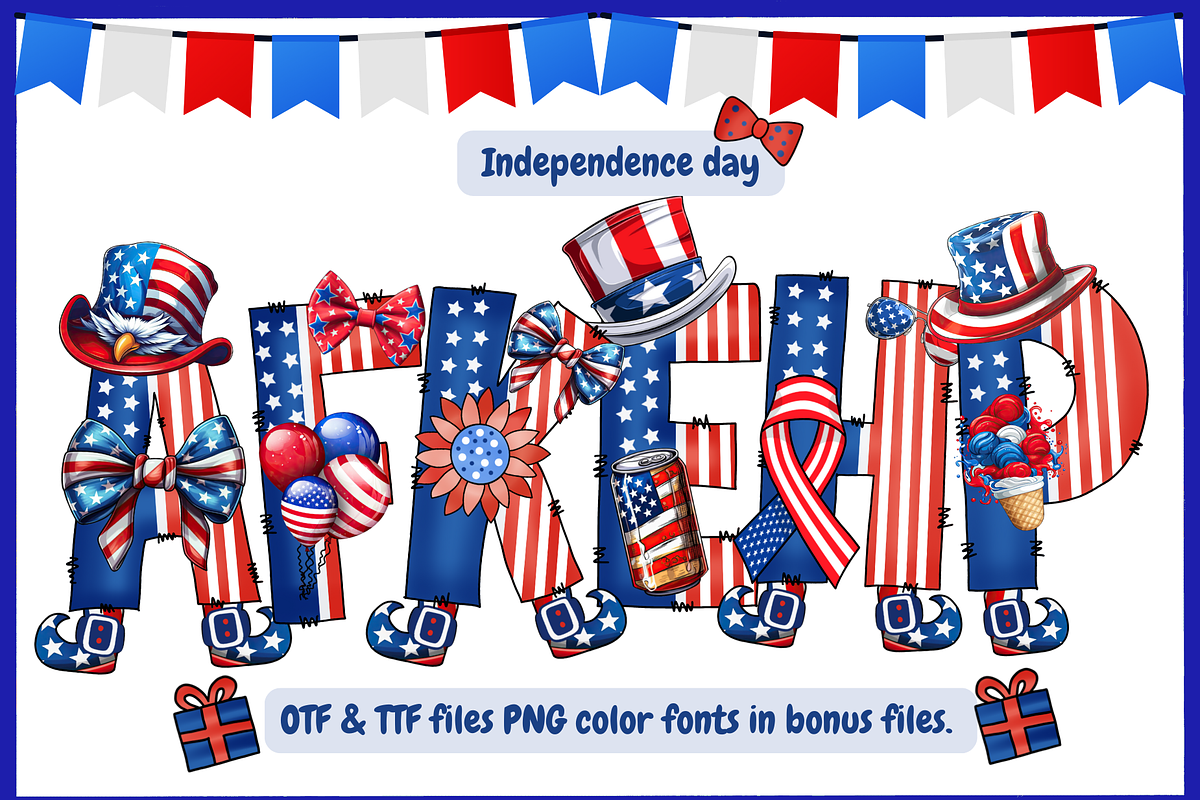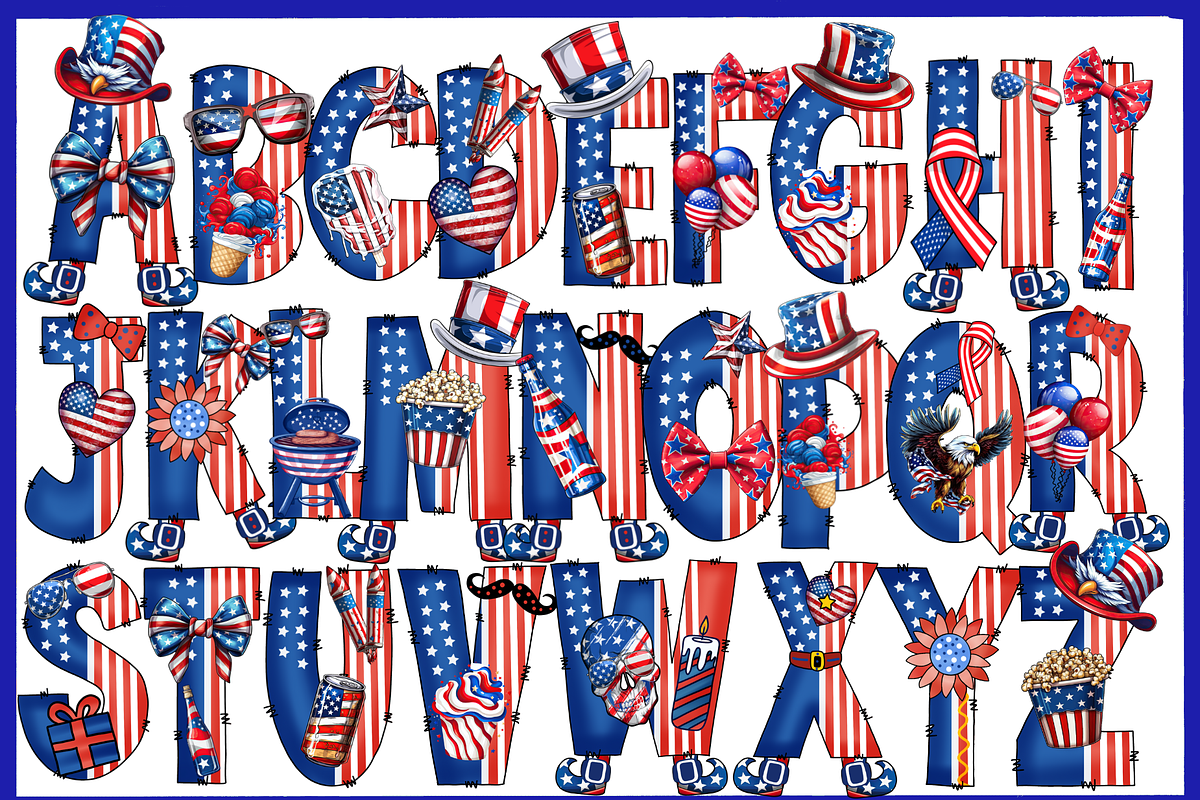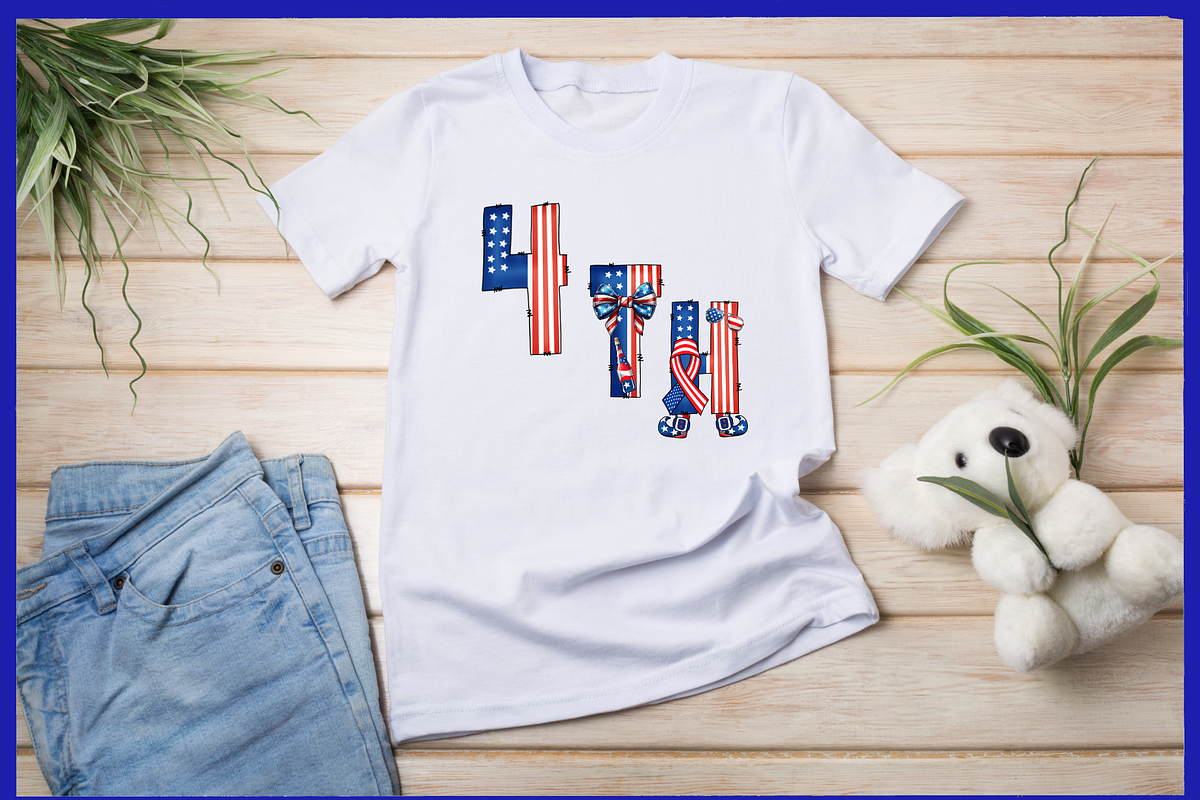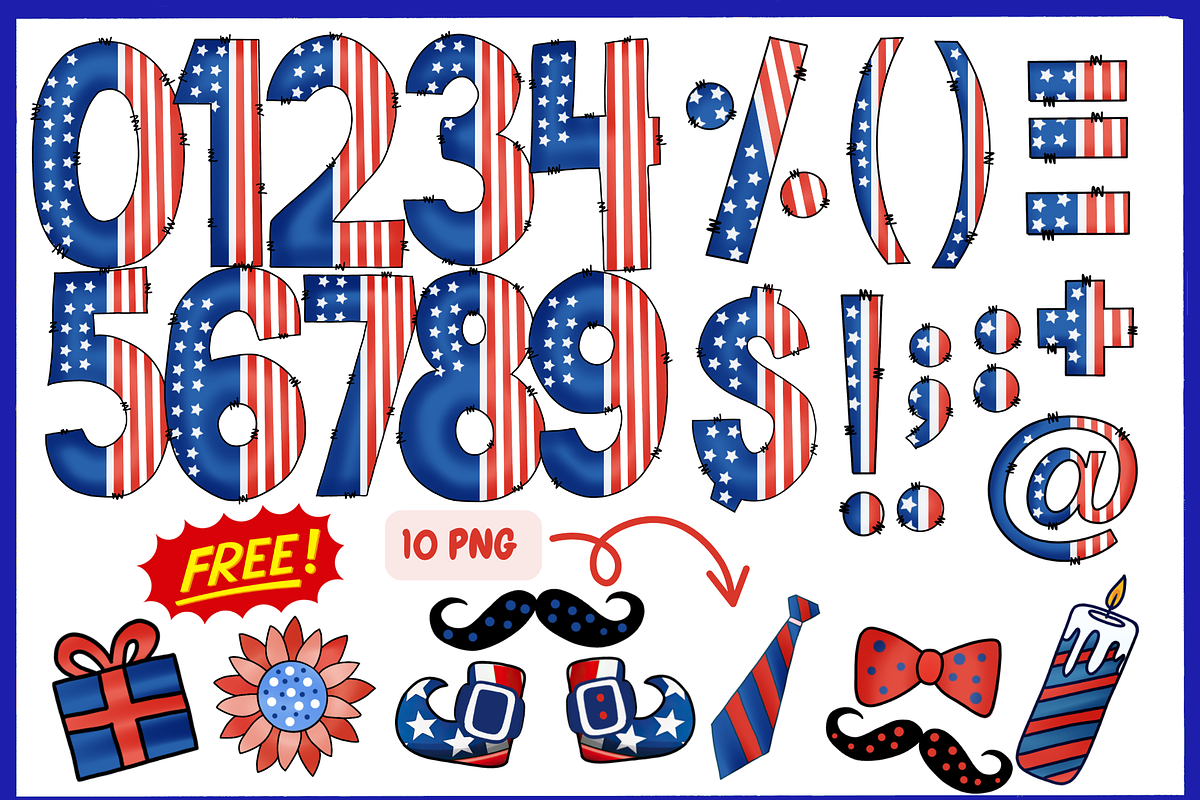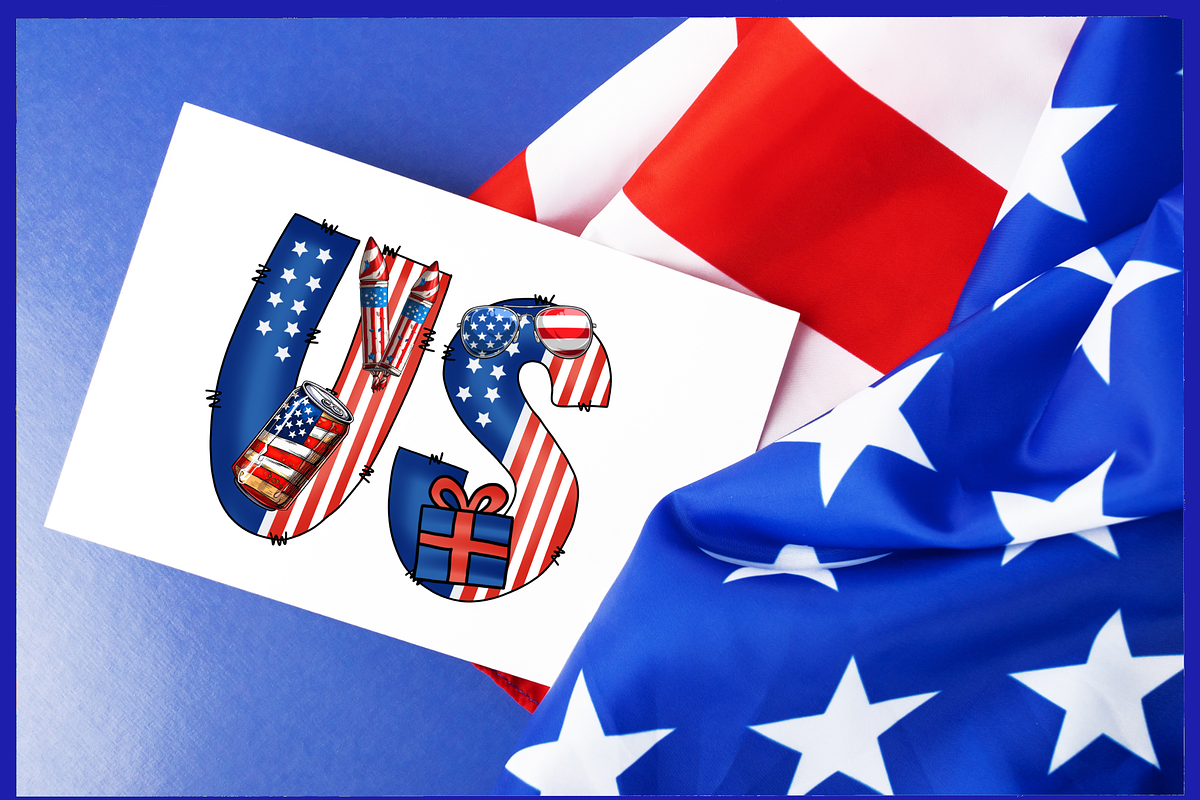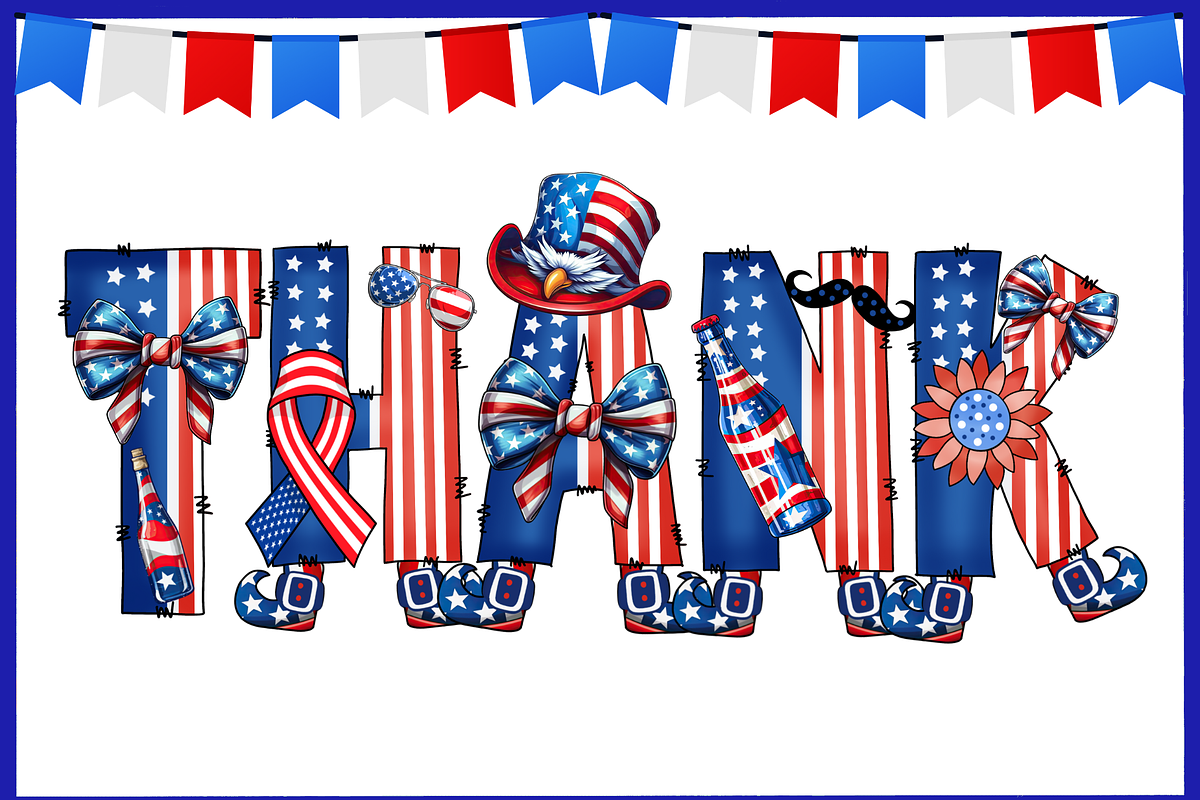
Independence Day-PNG fonts
Independence Day Font
Super cute handwriting font, simple style, suitable for teaching. decorate the presentation Use for education, advertising, illustration, multi-purpose use. welcome everyone thanks.